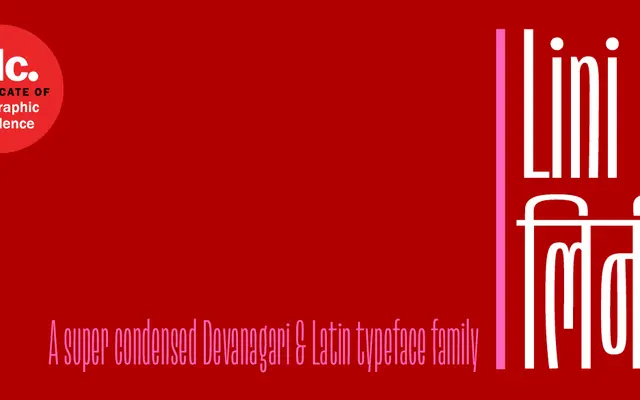
Lini
A super condensed Devanagari and Latin display typeface designed by Kimya Gandhi, pushed to the limits of compression while remaining legible at headline sizes.
Designed by Kimya Gandhi and released in beta from 2020, Lini pairs an extreme condensed form with a large x-height and shortened ascenders and descenders, optimised for stacked headlines and poster work. Its Devanagari conjuncts draw on old manuscript traditions, particularly Jain manuscripts, fitting vertically stacked forms within the kana height rather than descending below the baseline. The family earned a Certificate of Typographic Excellence from the Type Directors Club 65 and currently spans five weights, with a sixth Ultra Black planned.
Lini is explicitly designed for headlines and large typesetting rather than body text, with extreme compression and large x-height making it unsuitable for small sizes. Its primary purpose is eye-catching display use across Latin and Devanagari scripts.